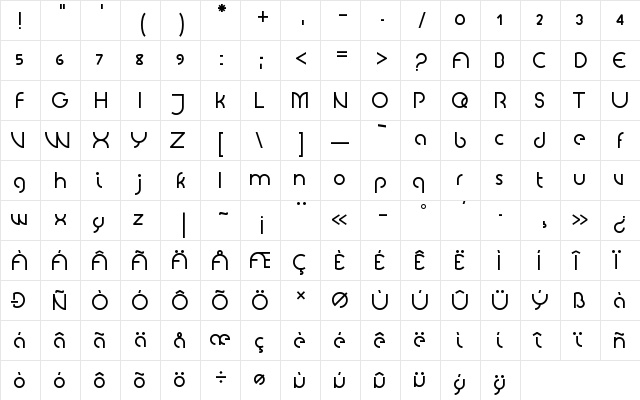
Arcade Future Display Regular
Design Context for Arcade Future Display Typeface
Arcade Future Display has a distinctly futuristic character, with geometric precision and clean angles that feel at home in technology, gaming, and sci-fi contexts.
Pro Tip: Try Arcade Future Display with generous letter-spacing in UI labels and navigation — the geometric forms benefit from room to breathe.